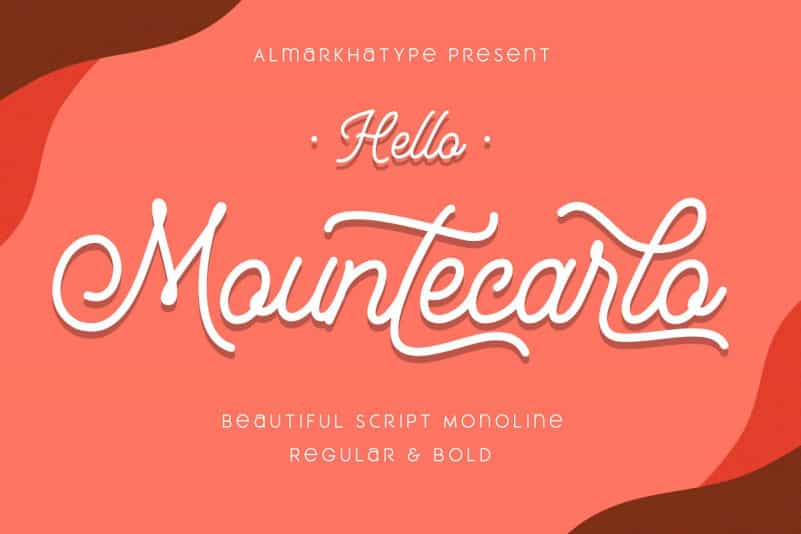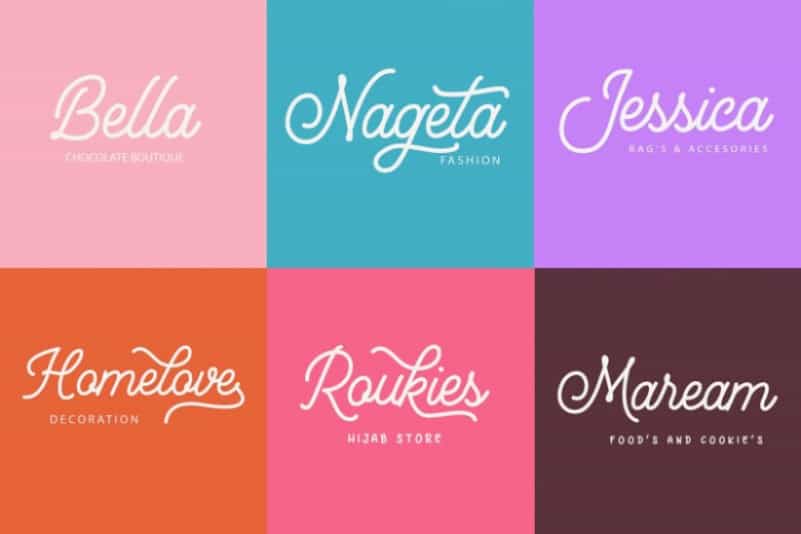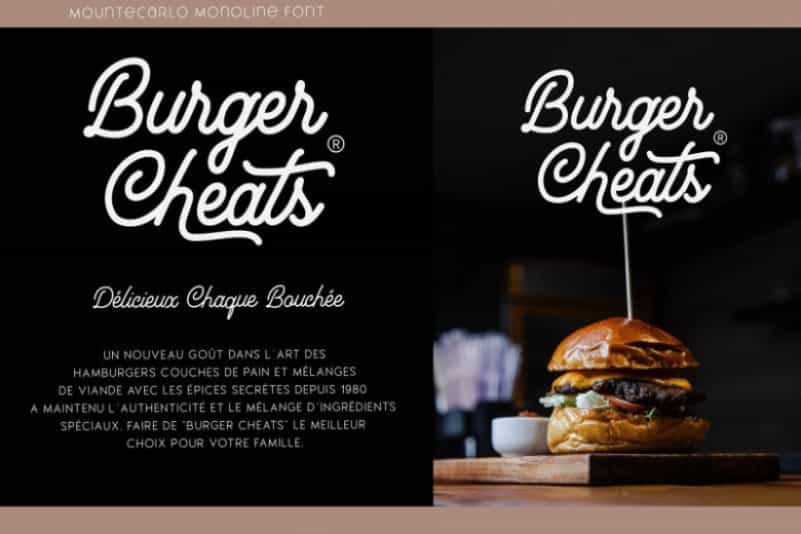
Discover Mountecarlo Monoline Script Font, part of the Calligraphy Handwritten Monoline collection—a versatile and unique font perfect for adding a personal touch to your projects. Download it for free and enjoy crafting designs with style, from invitations to social media posts. This font is available exclusively for personal use, giving you the freedom to create without limits. Unlock your creativity with Mountecarlo Monoline Script Font today!
Mountecarlo is a handcrafted font featuring swashes that can elevate the look of any design project!